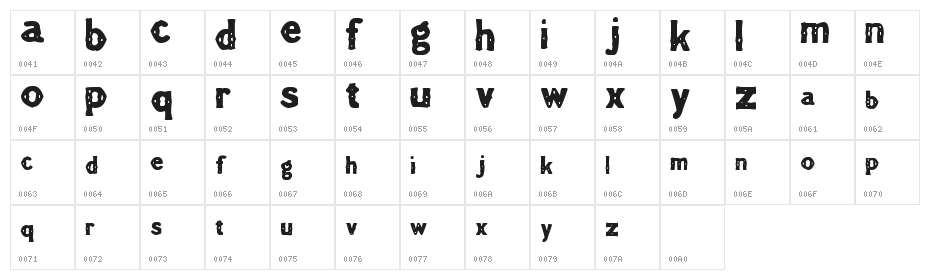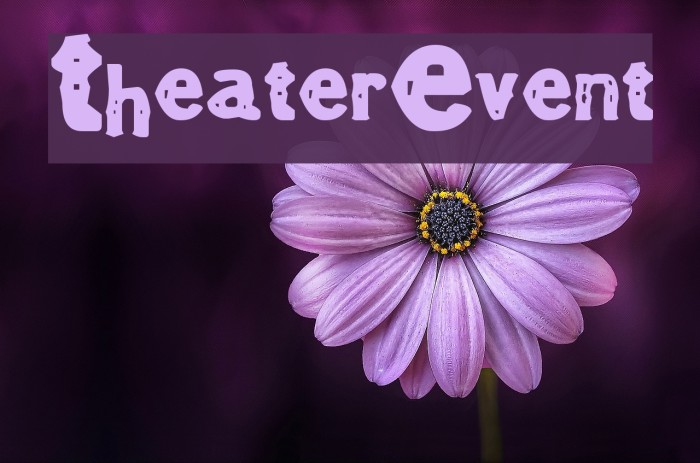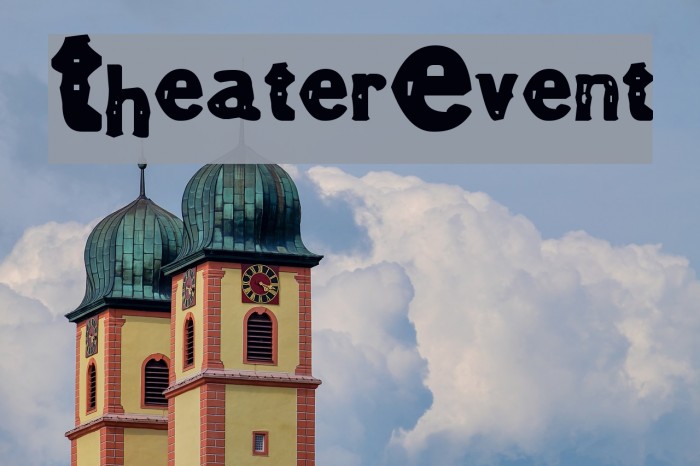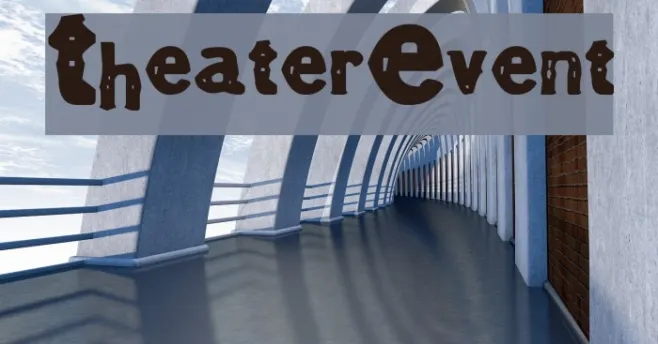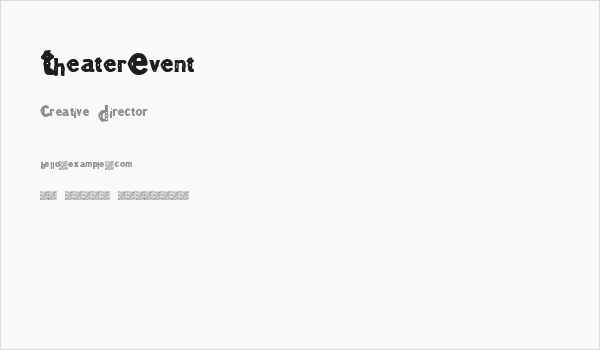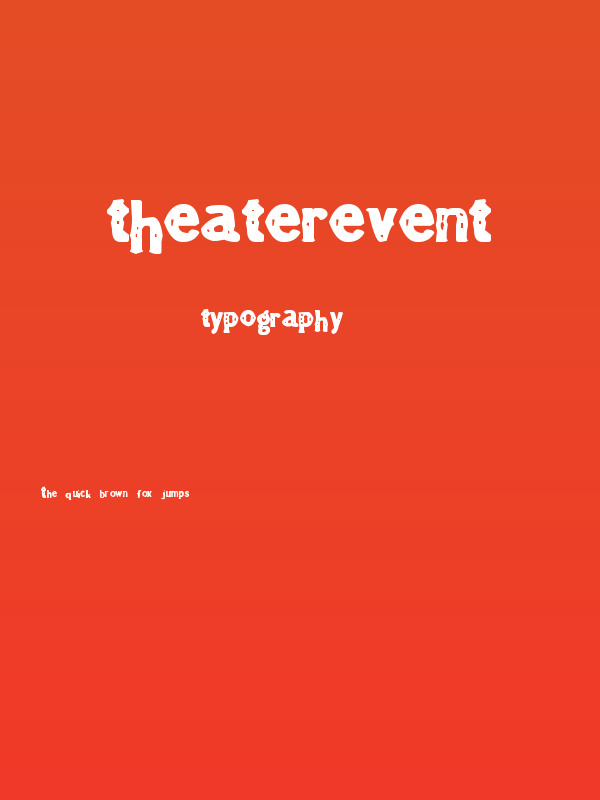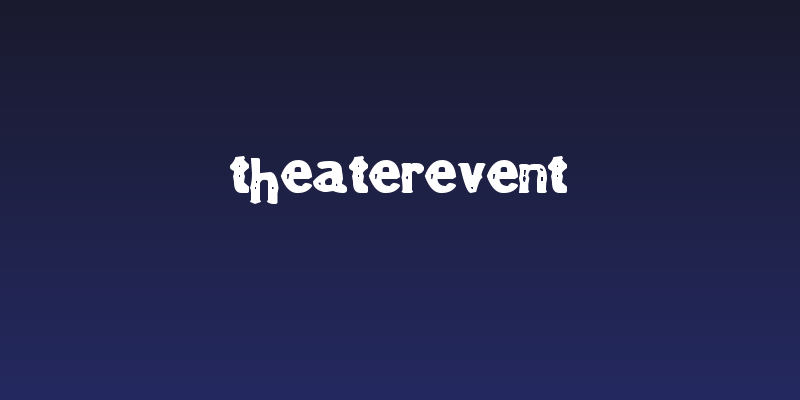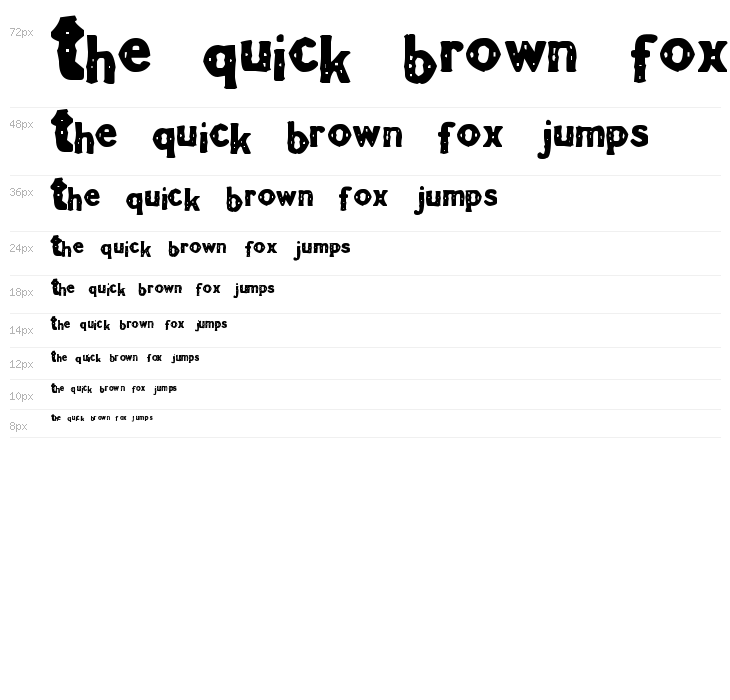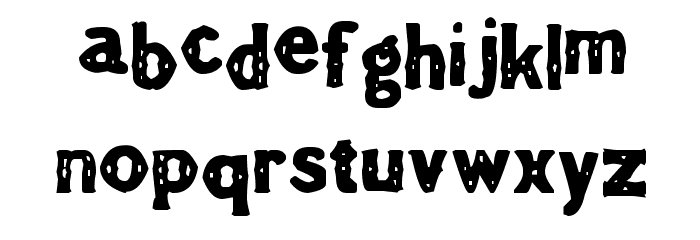
TheaterEvent Font
TheaterEvent Description
This font features a playful and bold design with a slightly irregular and whimsical appearance. The characters have a hand-drawn quality, with uneven edges and varying thicknesses that give it a lively and dynamic feel. The font is highly decorative, making it ideal for creative and informal projects. Its unique style captures attention and adds a sense of fun and creativity to any design. The characters are well-spaced, ensuring readability while maintaining their distinctive artistic flair. This font is perfect for projects that require a touch of personality and charm.